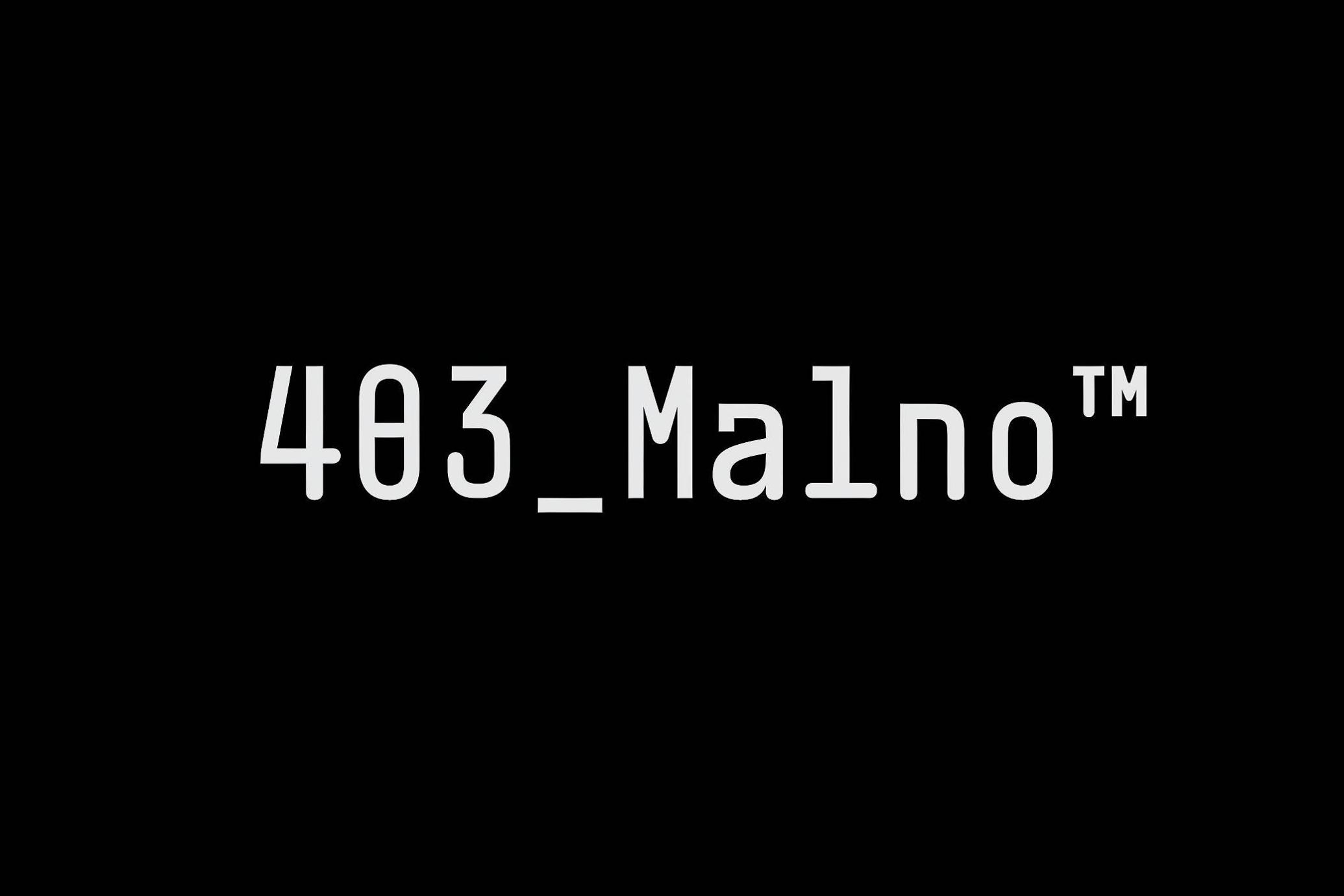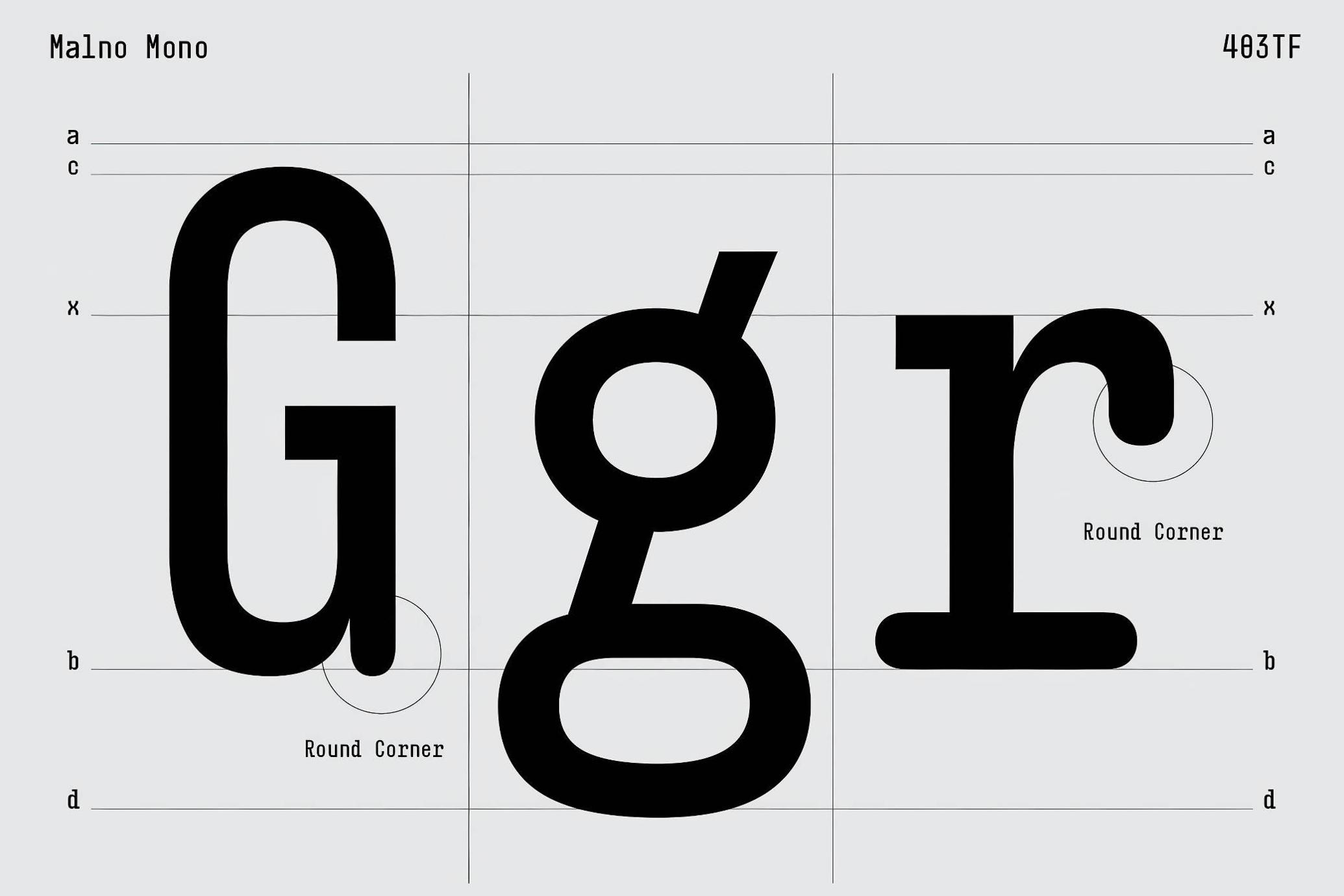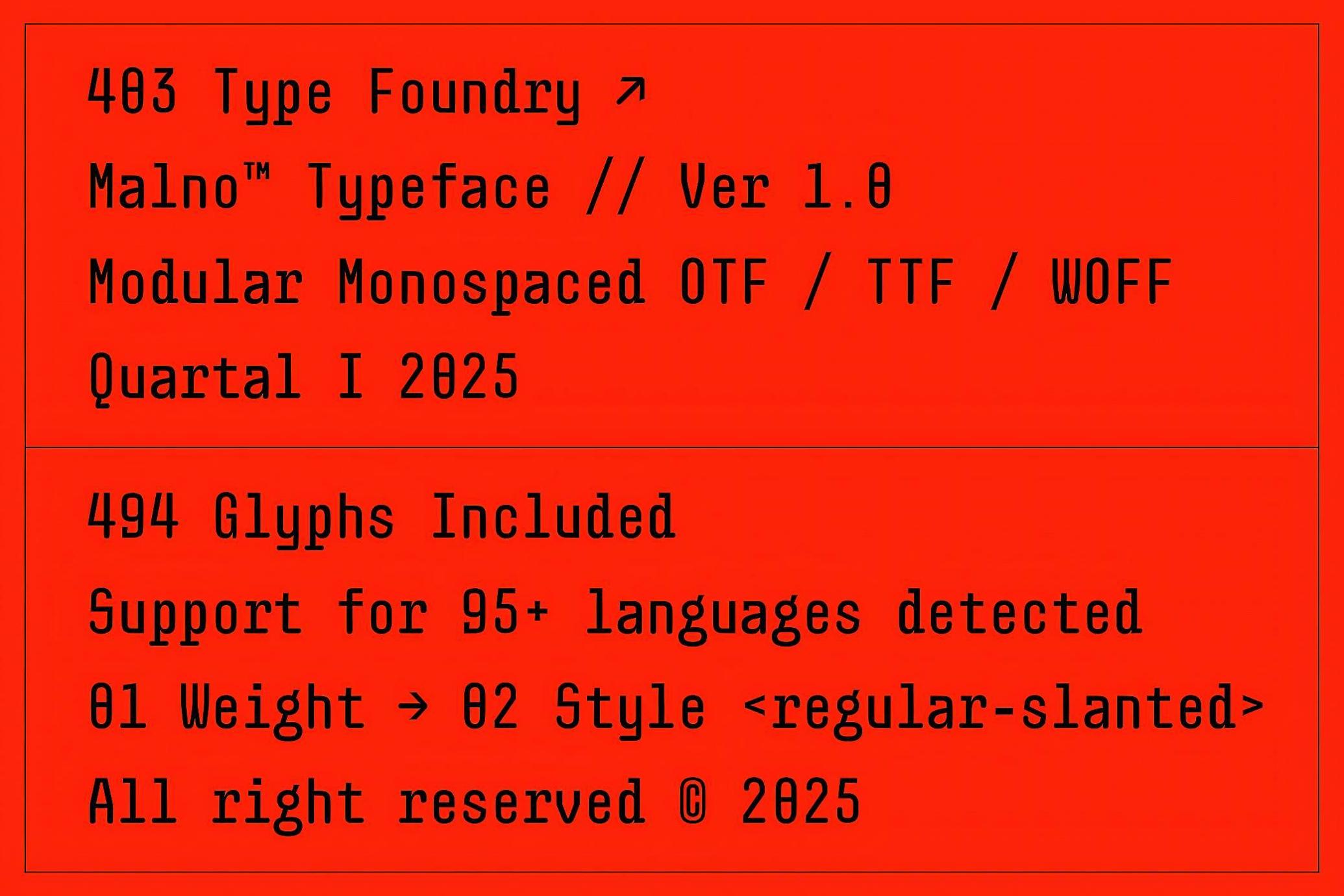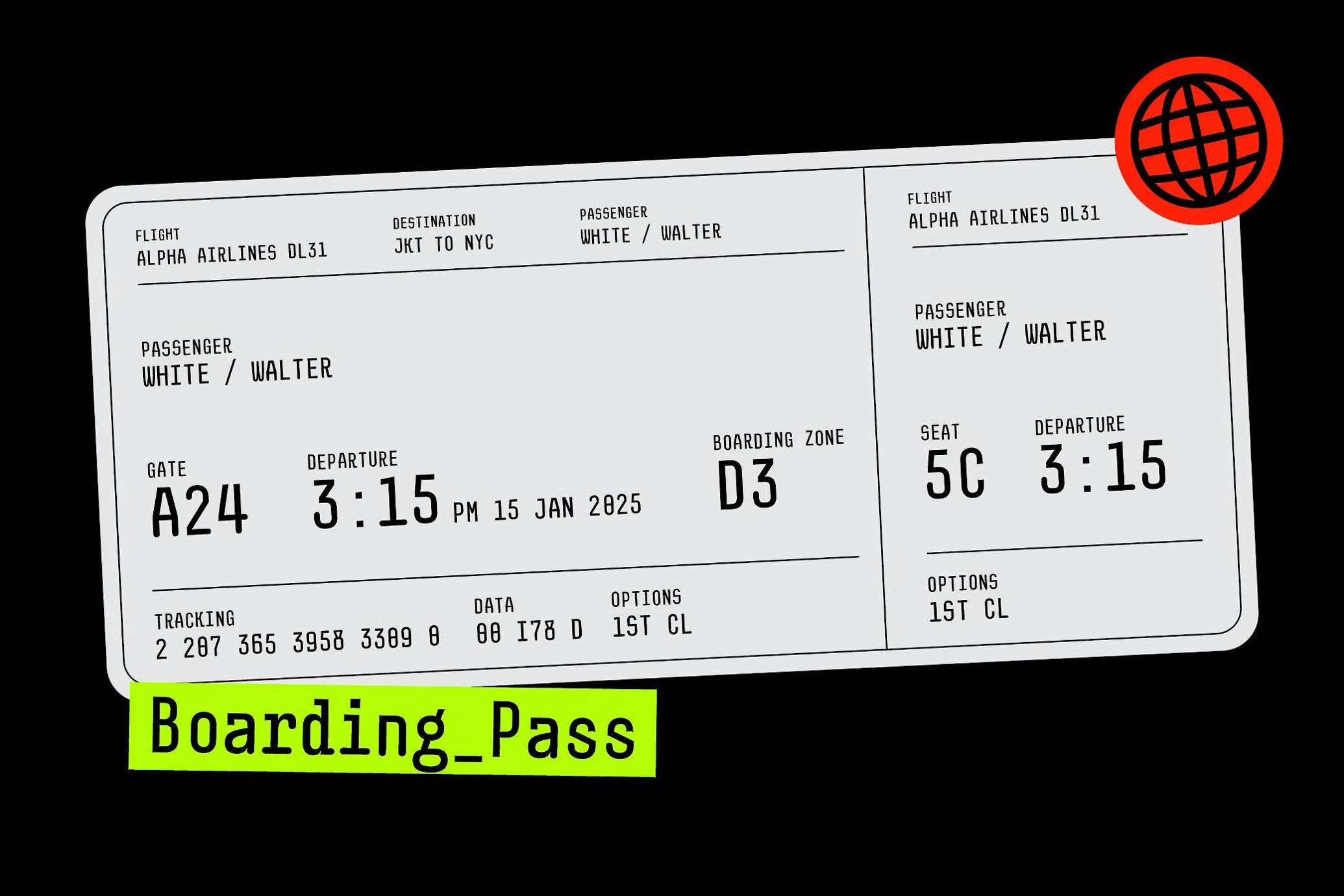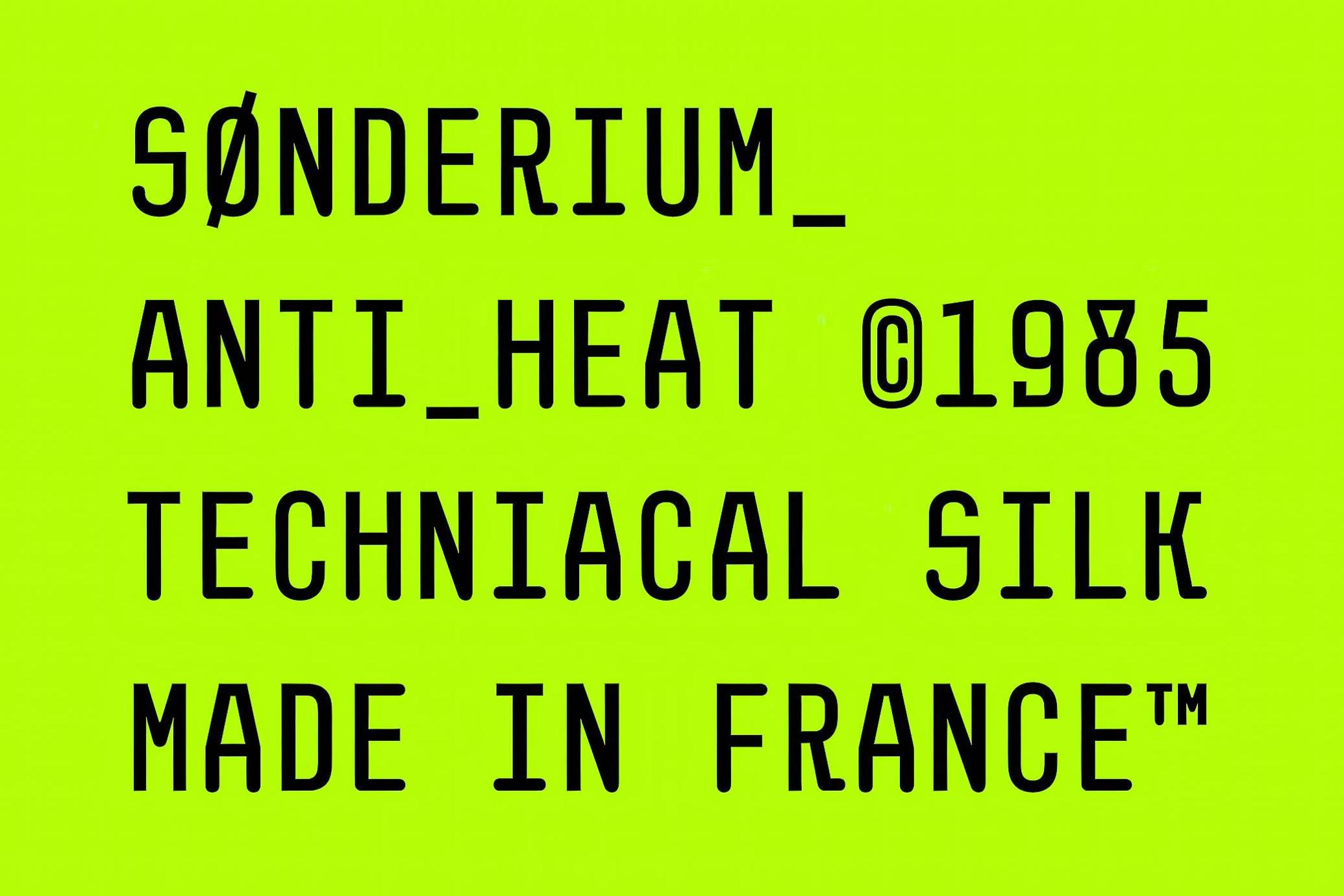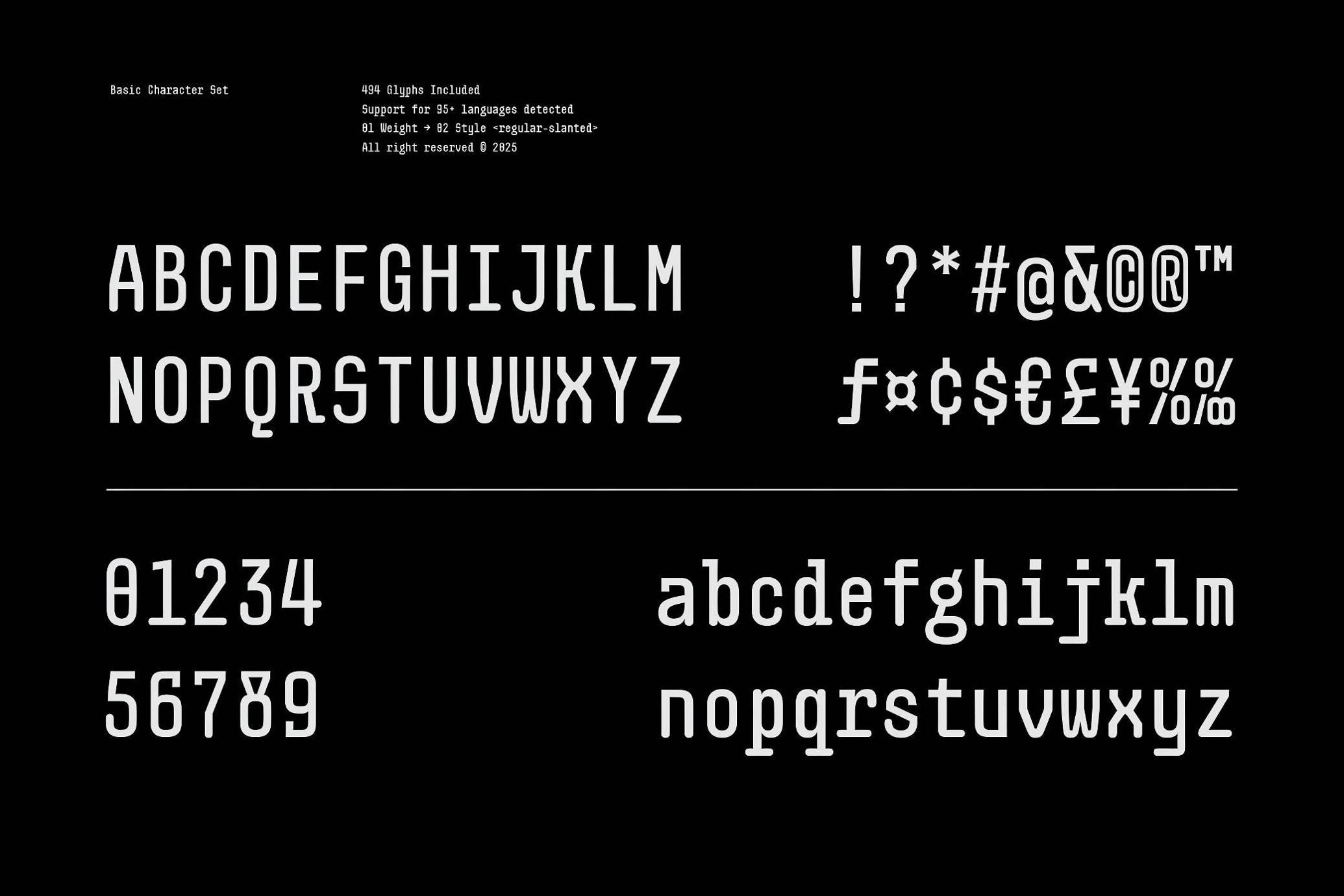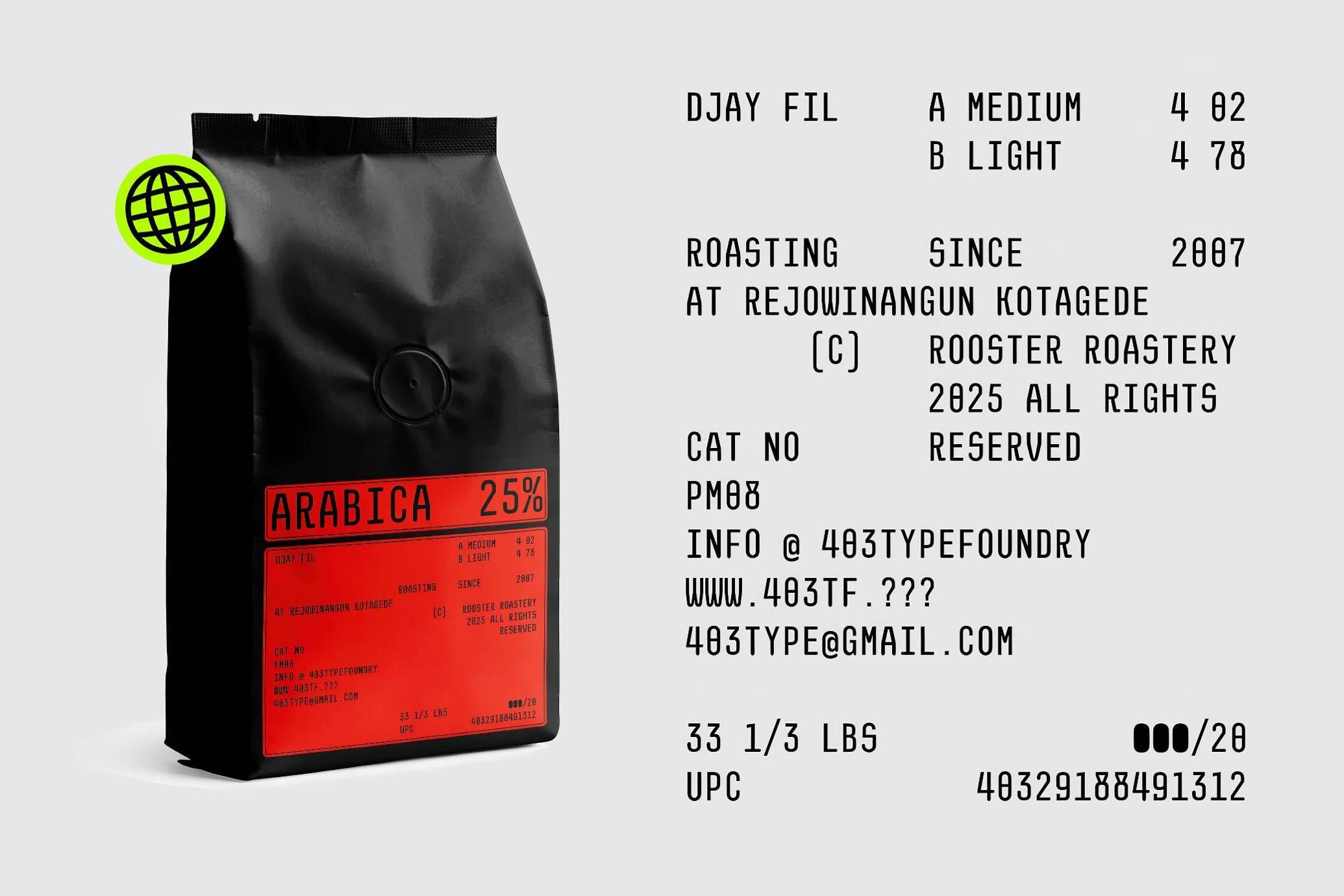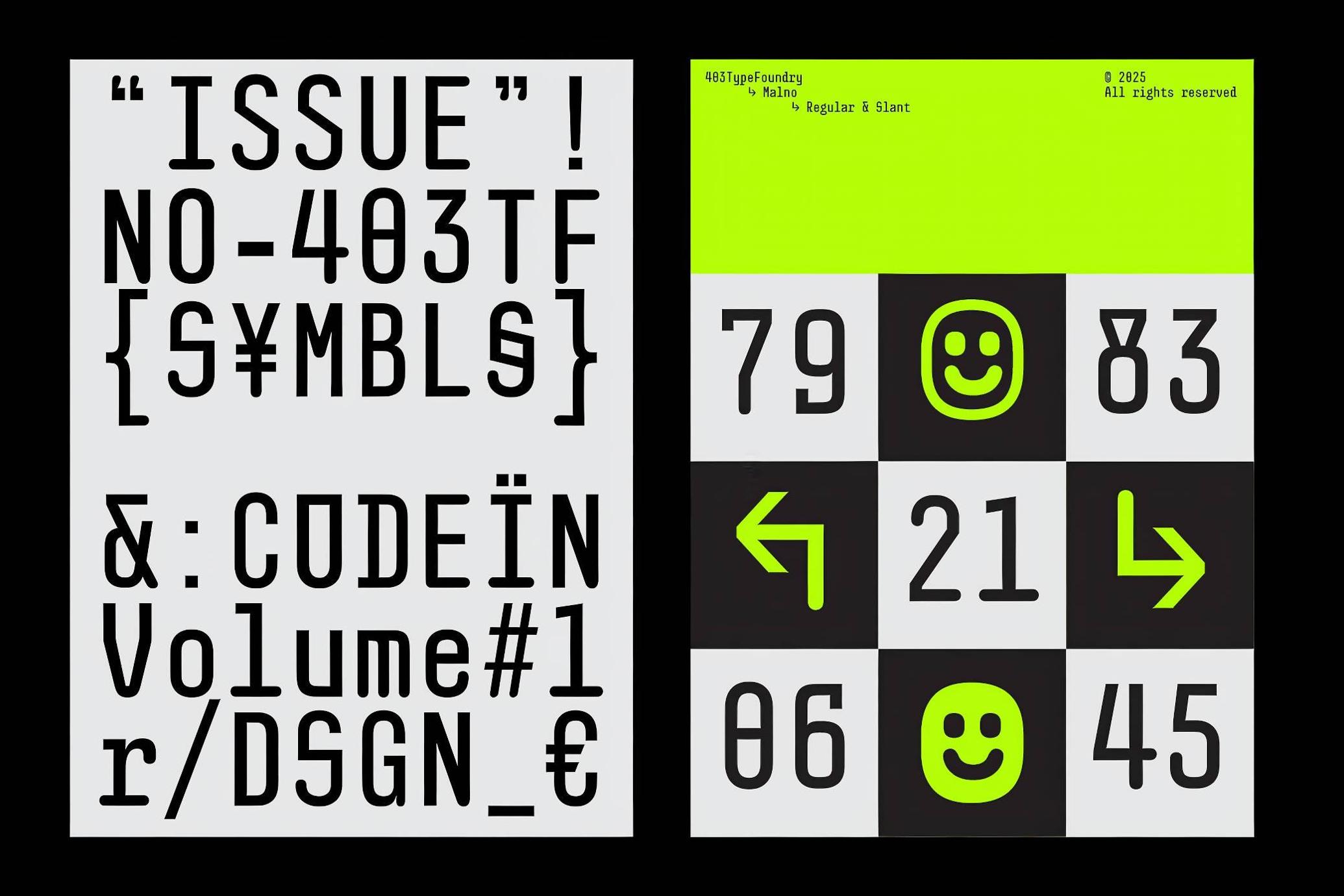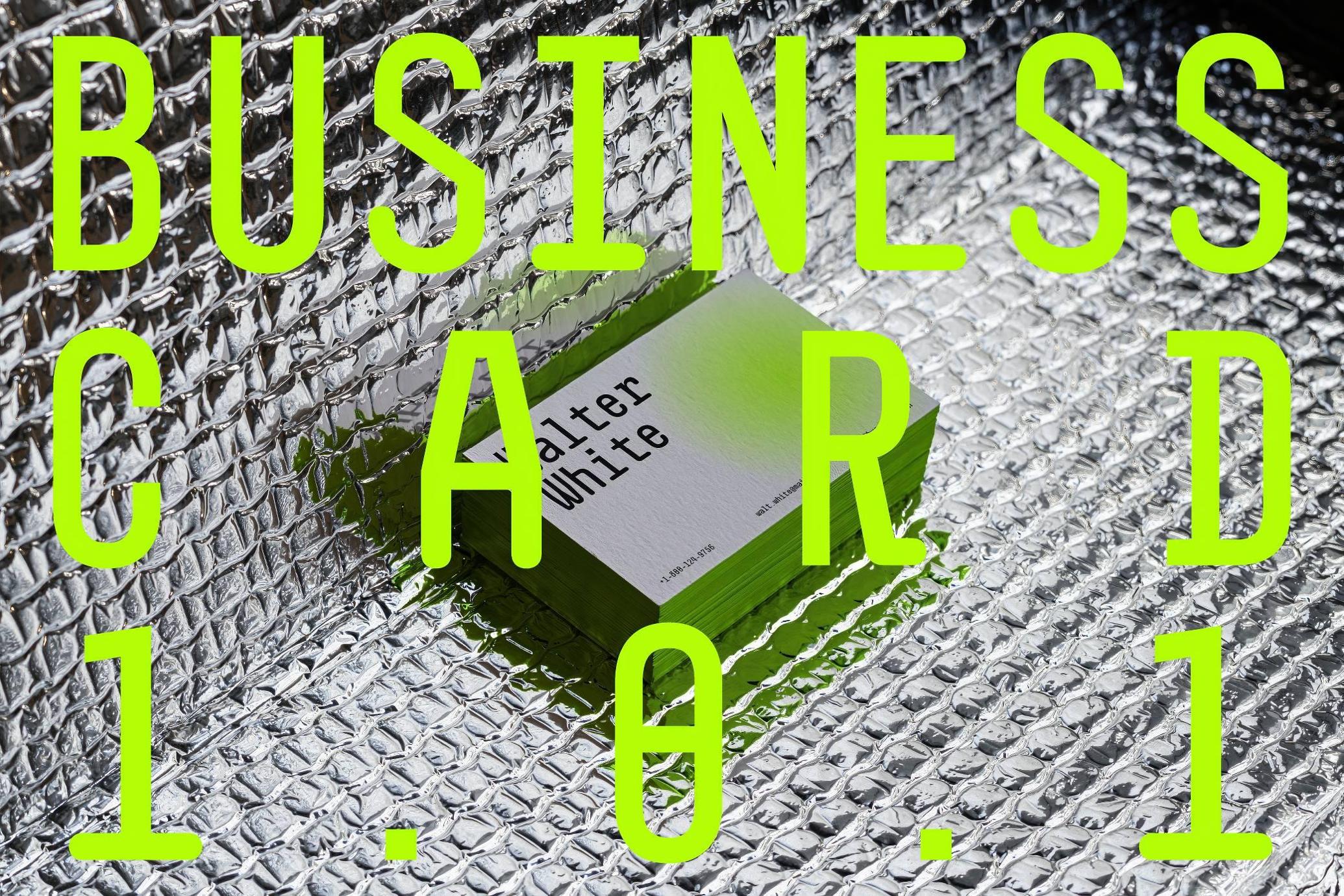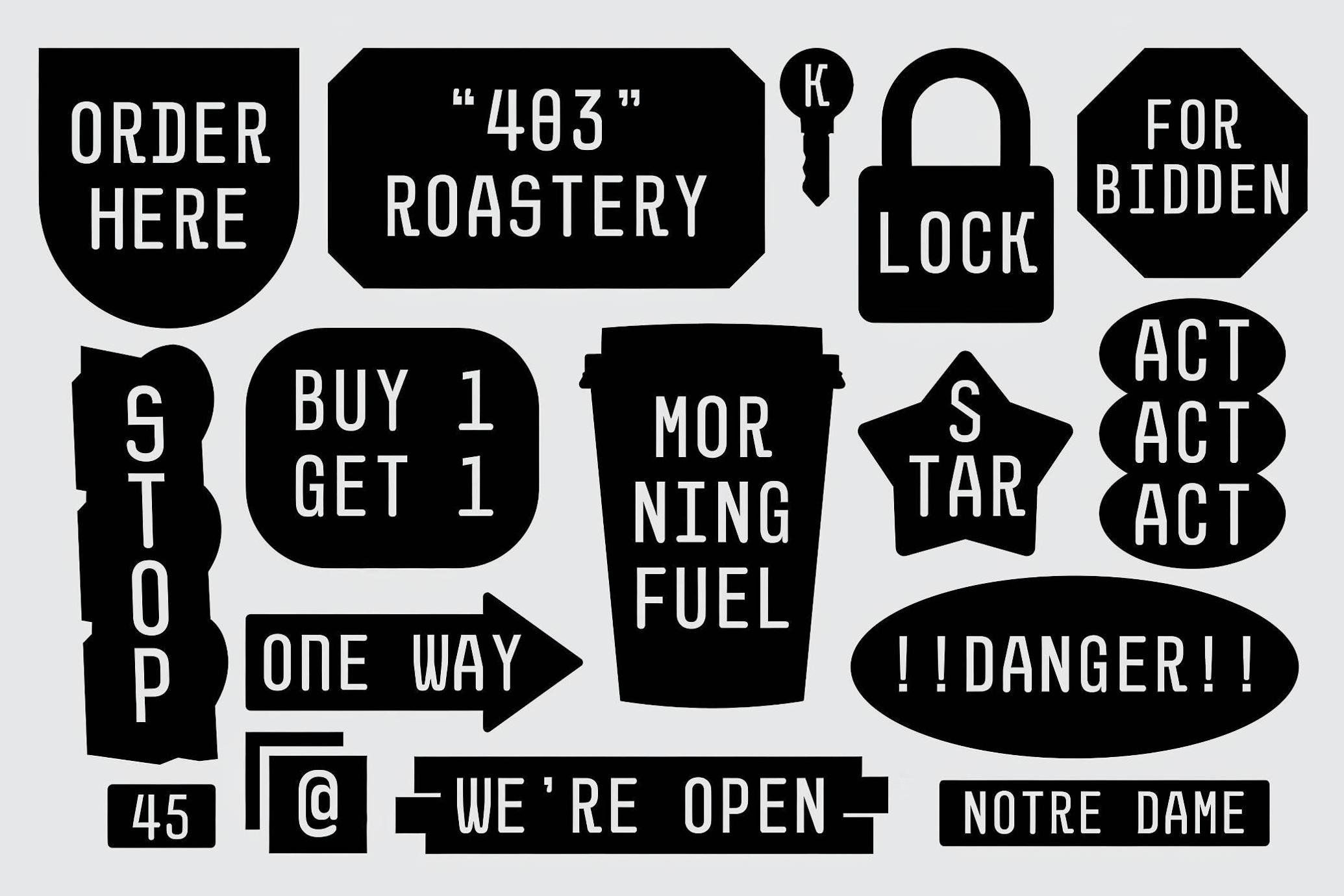
403 Malno Mono — Sans Serif Font
If HAL 9000 ever took up graphic design, this is the typeface it would use. 403 Malno is a modular monospace font built with surgical precision and a streak of rebellion — technical at heart, but with just enough eccentricity to keep things interesting. The clean, geometric structure ensures legibility in dense UI layouts, terminal screens, or experimental editorial spreads without losing visual identity. Equipped with 494 glyphs and supporting 95+ languages, it’s built for wide reach and sharp clarity. Two styles (Regular and Slanted) and one refined weight come packaged in OTF, TTF, and WOFF formats, making it a reliable asset for both digital and print projects.